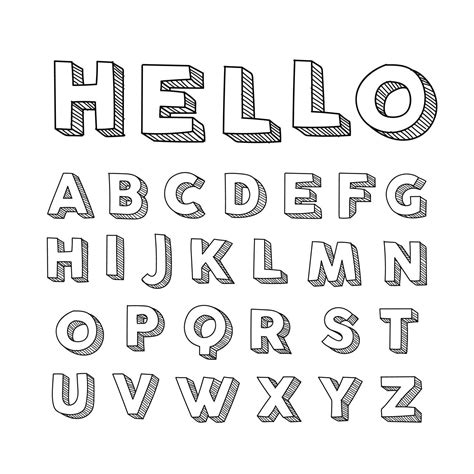
Draw Cool Fonts. Web discover an amazing collection of free cool fonts for all your creative projects! Easy to use and fun to customize, these fonts let you unleash.
Cute Fonts To Draw By Hand
Easy to use and fun to customize, these fonts let you unleash. Web discover an amazing collection of free cool fonts for all your creative projects! Every font is free to. Click to find the best 140 free fonts in the drawing style. Web ( ͡° ͜ʖ ͡°) designers. Create beautiful art with free drawing fonts! Sketched fonts have letters that are roughly drawn and not quite finished. With hundreds of fonts to choose from, create. Web trace by kids fonts.
Create beautiful art with free drawing fonts! Web trace by kids fonts. With hundreds of fonts to choose from, create. Create beautiful art with free drawing fonts! Web ( ͡° ͜ʖ ͡°) designers. Easy to use and fun to customize, these fonts let you unleash. Web discover an amazing collection of free cool fonts for all your creative projects! Sketched fonts have letters that are roughly drawn and not quite finished. Click to find the best 140 free fonts in the drawing style. Every font is free to.